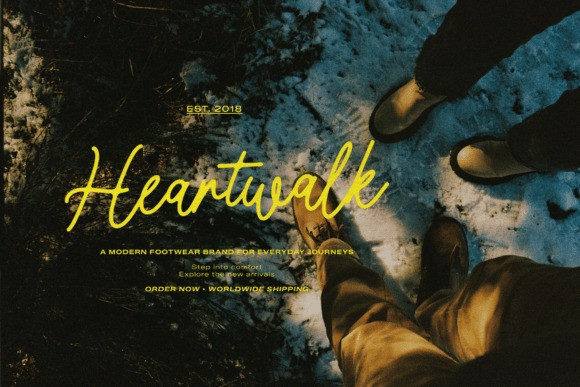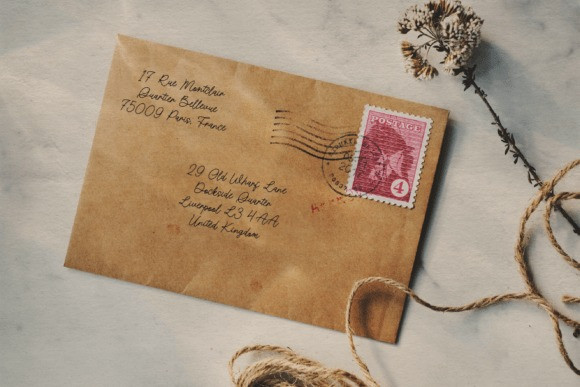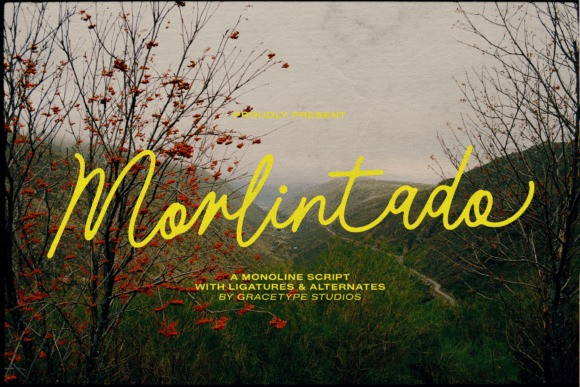
Morlintado Handwriting Font
Morlintado Handwriting Font a stunning monoline script that flows with natural grace.This Morlintado typeface features elongated swashes and elegant ligatures that mimic a continuous pen stroke, creating a sense of effortless movement and sophistication. It is an ideal choice for luxury branding, wedding stationery, and photography watermarks that require a personal, high-end touch.
The Morlintado font is packed with alternates that allow you to customize the beginning and end of words for a truly bespoke look. To enhance the romantic feel, pair the Morlintado font with a soft, muted color palette and organic textures like linen or handmade paper. Whether you are designing a high-end wine label or a heartfelt greeting card, this monoline script brings a sense of refined beauty and timeless artisan craftsmanship to your digital canvas.